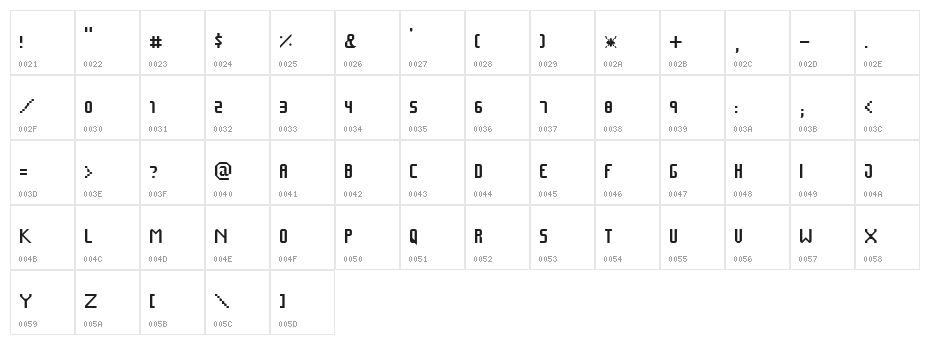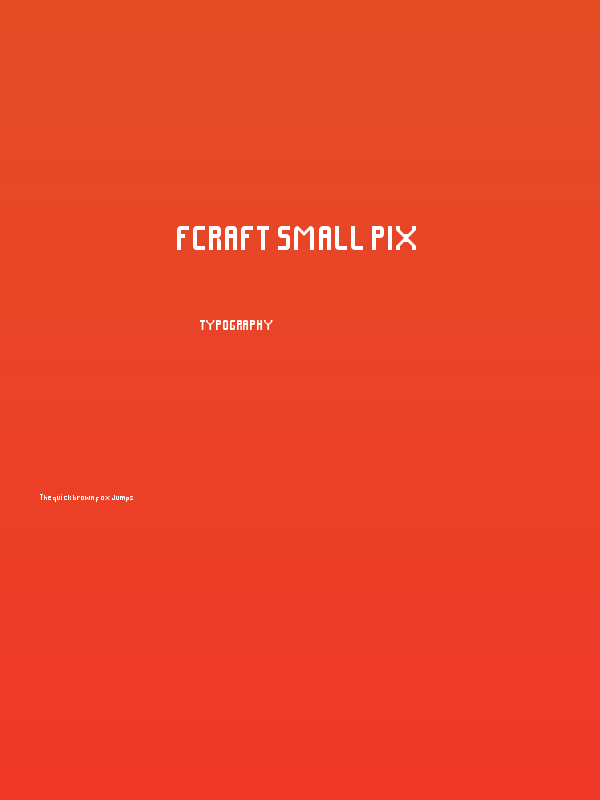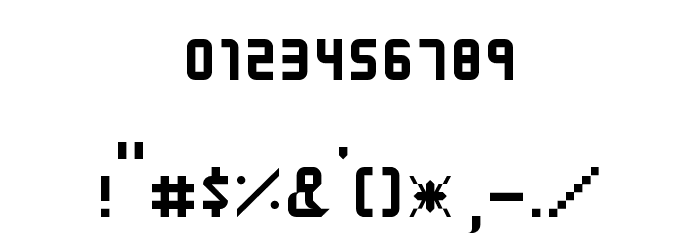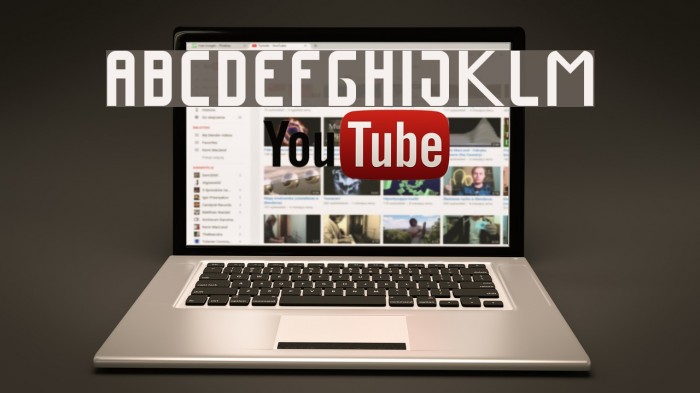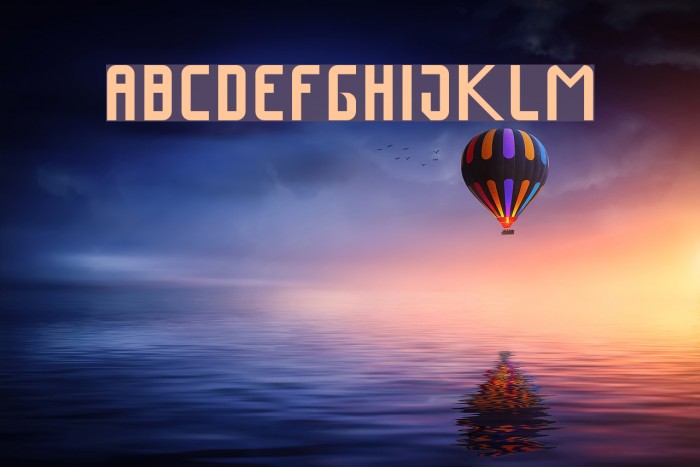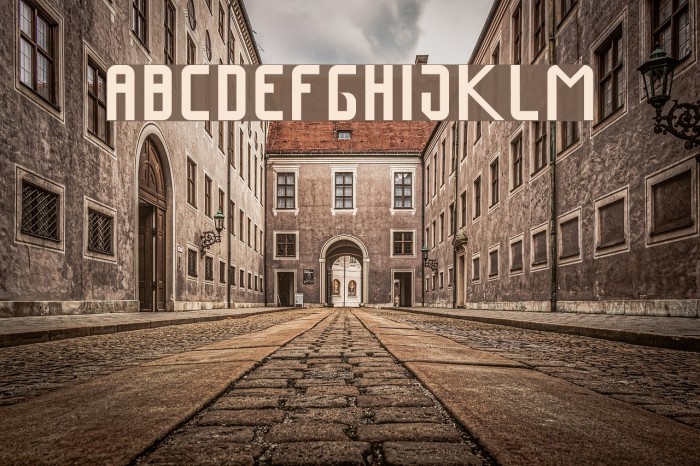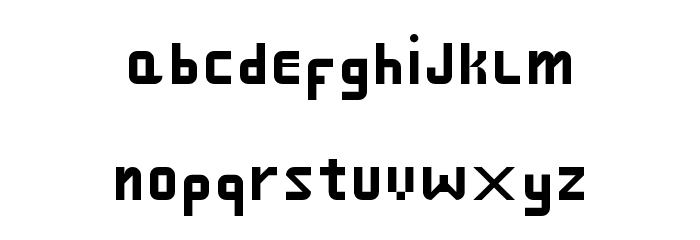
Fcraft Small Pix Font
Fcraft Small Pix Description
This font features a geometric and blocky design, characterized by its sharp angles and straight lines. The uppercase letters are uniform in height, with a futuristic and digital aesthetic. The lowercase letters maintain a similar style, offering a consistent look across both cases. The numerals are distinct and easily readable, matching the angular style of the alphabet. Special characters are crafted with the same attention to geometric precision, making them fit seamlessly with the rest of the character set. Overall, the font conveys a modern and technological feel, suitable for digital interfaces and tech-related projects.